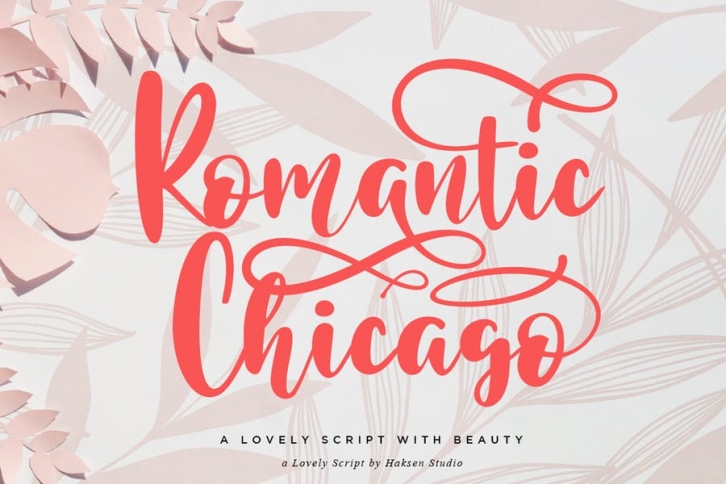
A hand lettered font with modern calligraphy style
Cute and pretty style with alternates in lowercase
Numerical, Punctuation, Multi language included